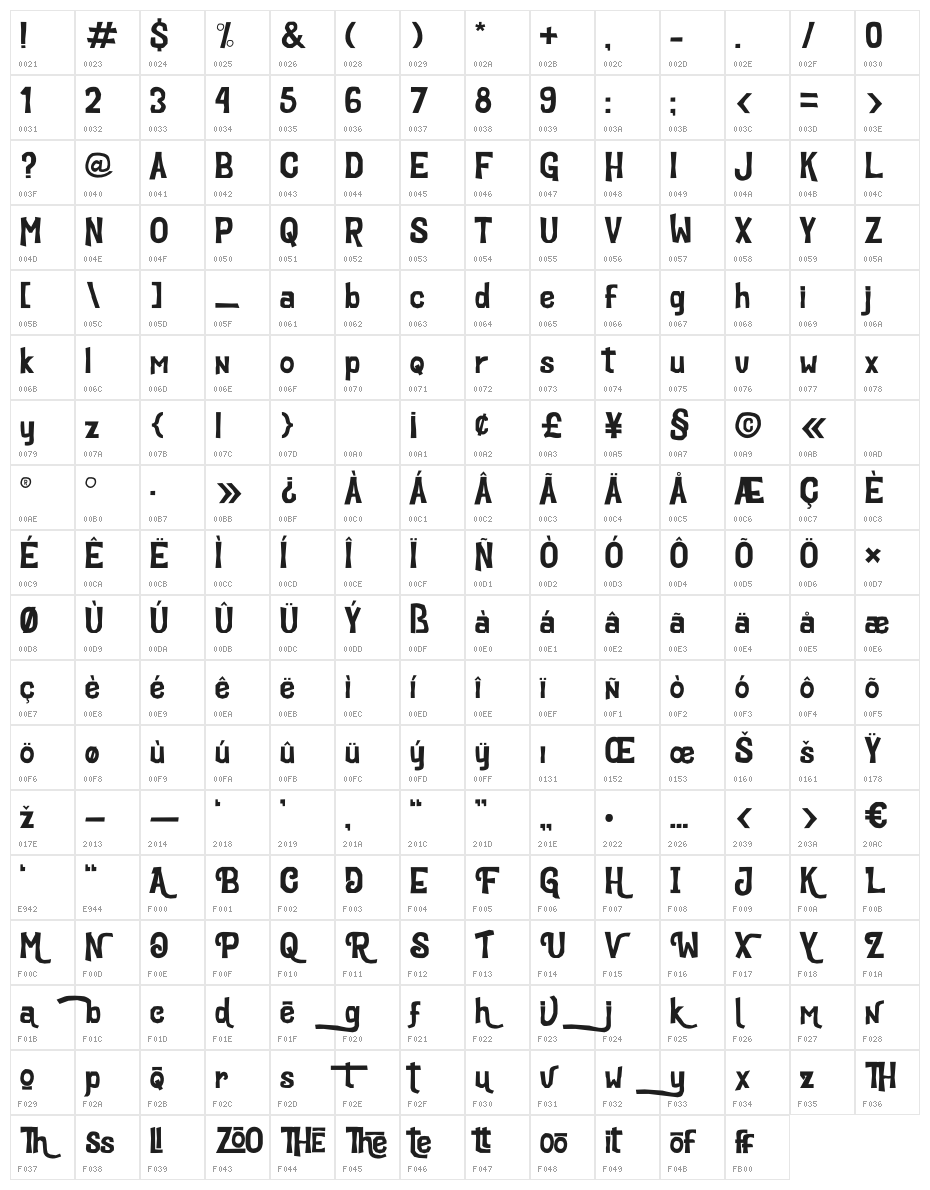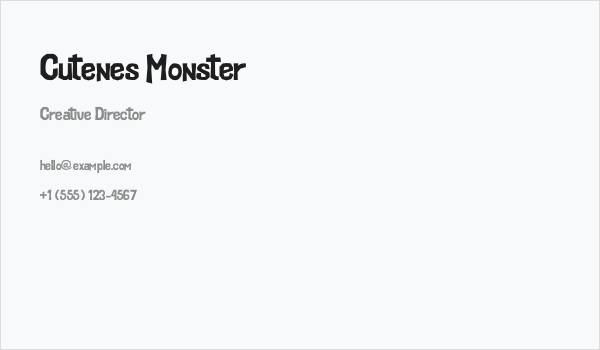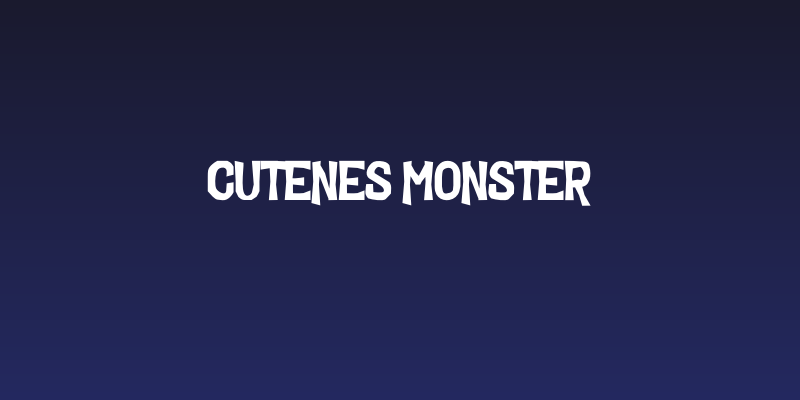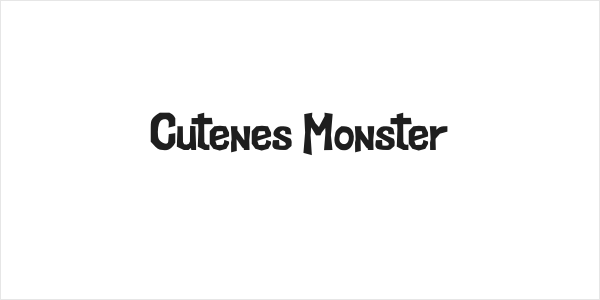
Cutenes Monster Font
Cutenes Monster Description
This playful and bold font features a unique, quirky design with exaggerated curves and angles, giving it a fun and energetic appearance. The uppercase and lowercase letters maintain a consistent style, with slightly irregular shapes that add to its charm. The numbers and special characters are equally distinctive, making this font versatile for various creative projects. Its bold strokes and whimsical style make it stand out, perfect for capturing attention in any design.
| Proposed Projects | Ideal for children's books, playful branding, posters, and creative invitations. |